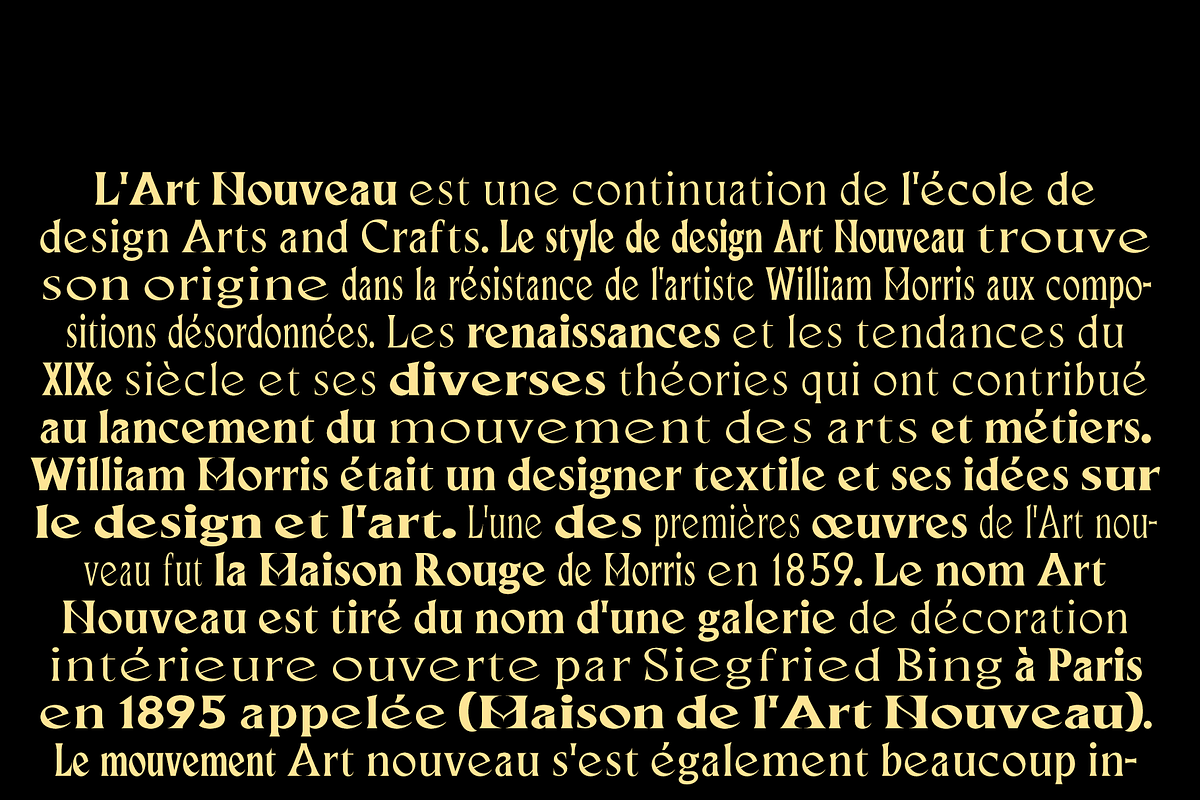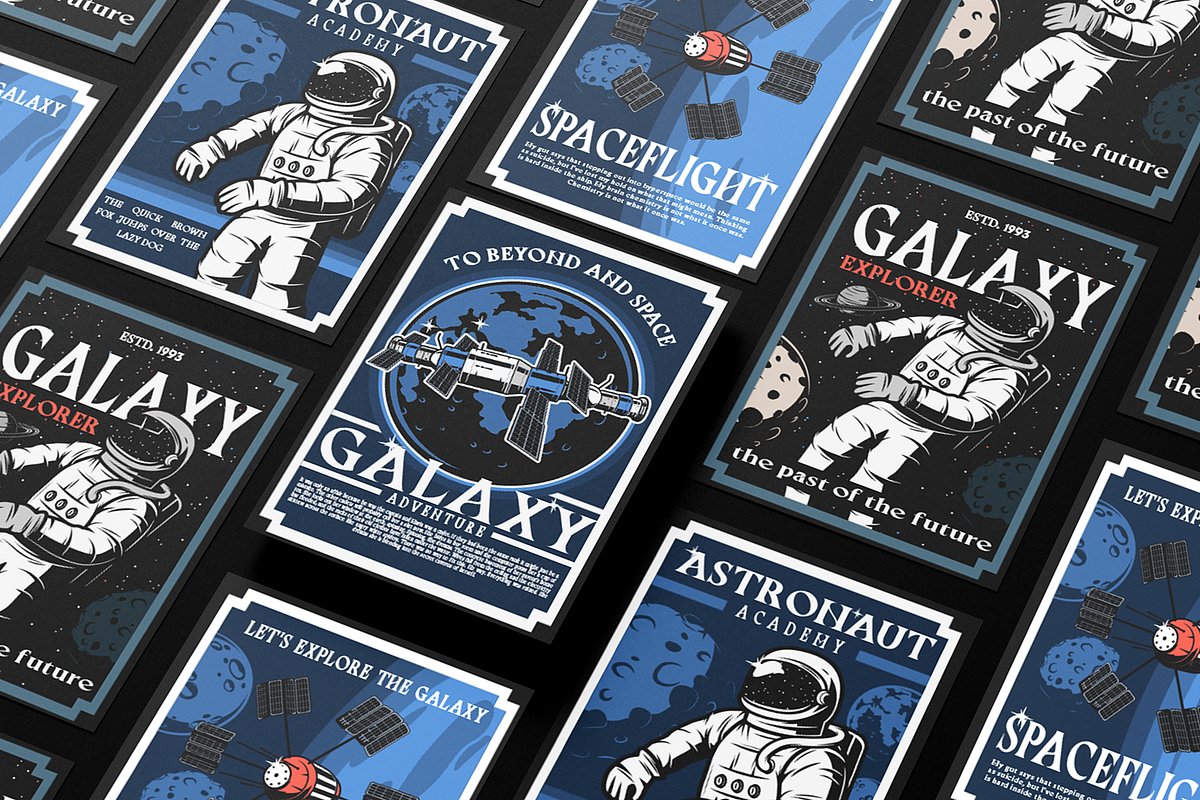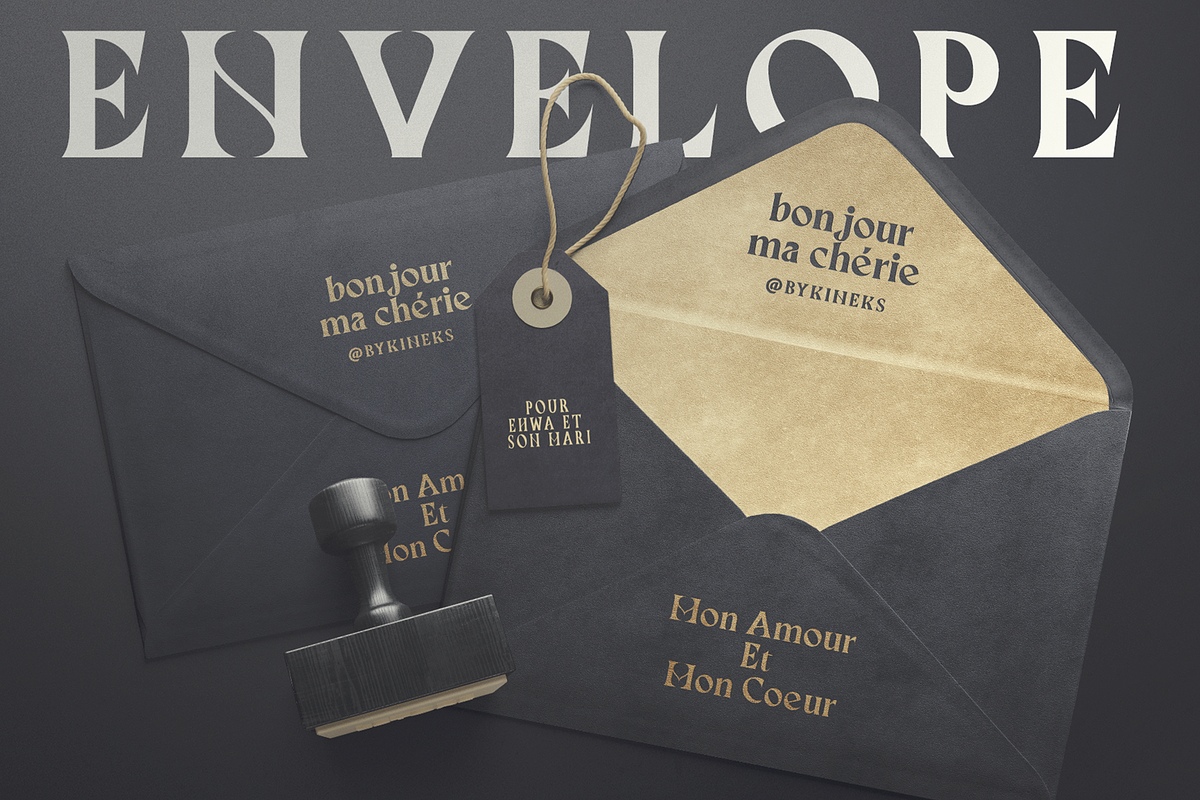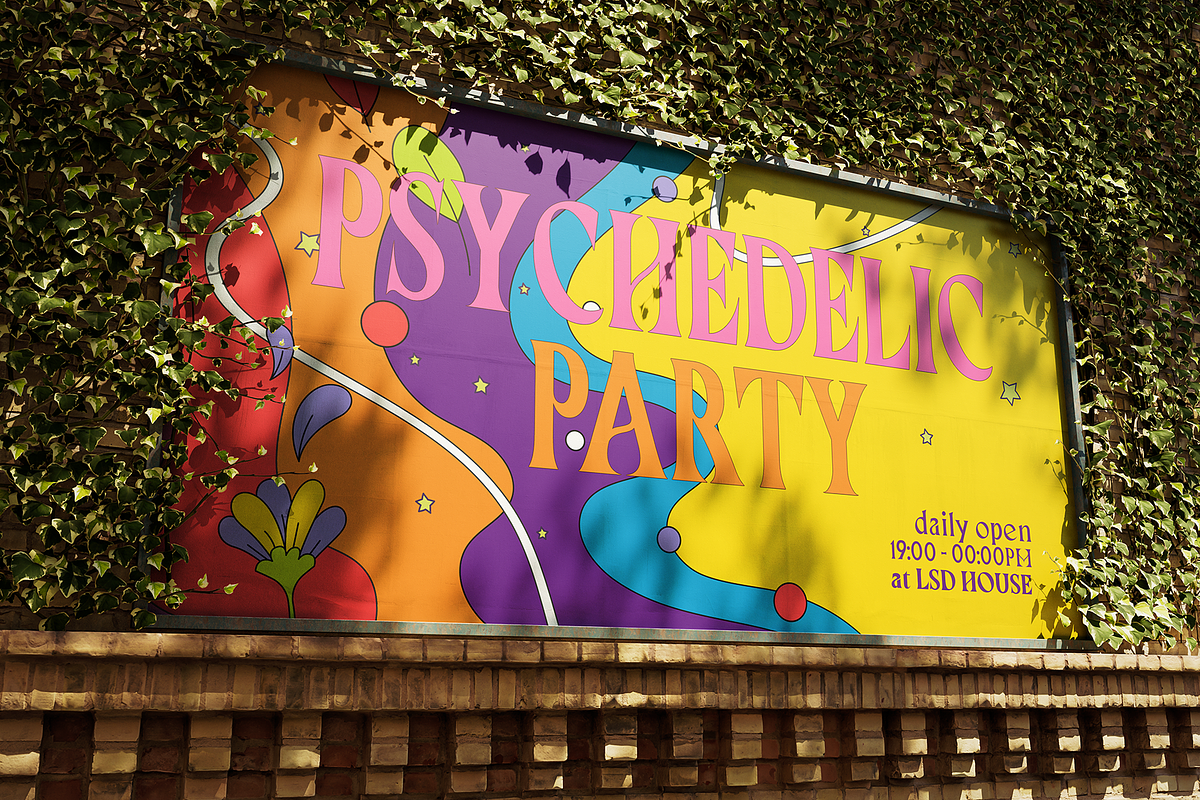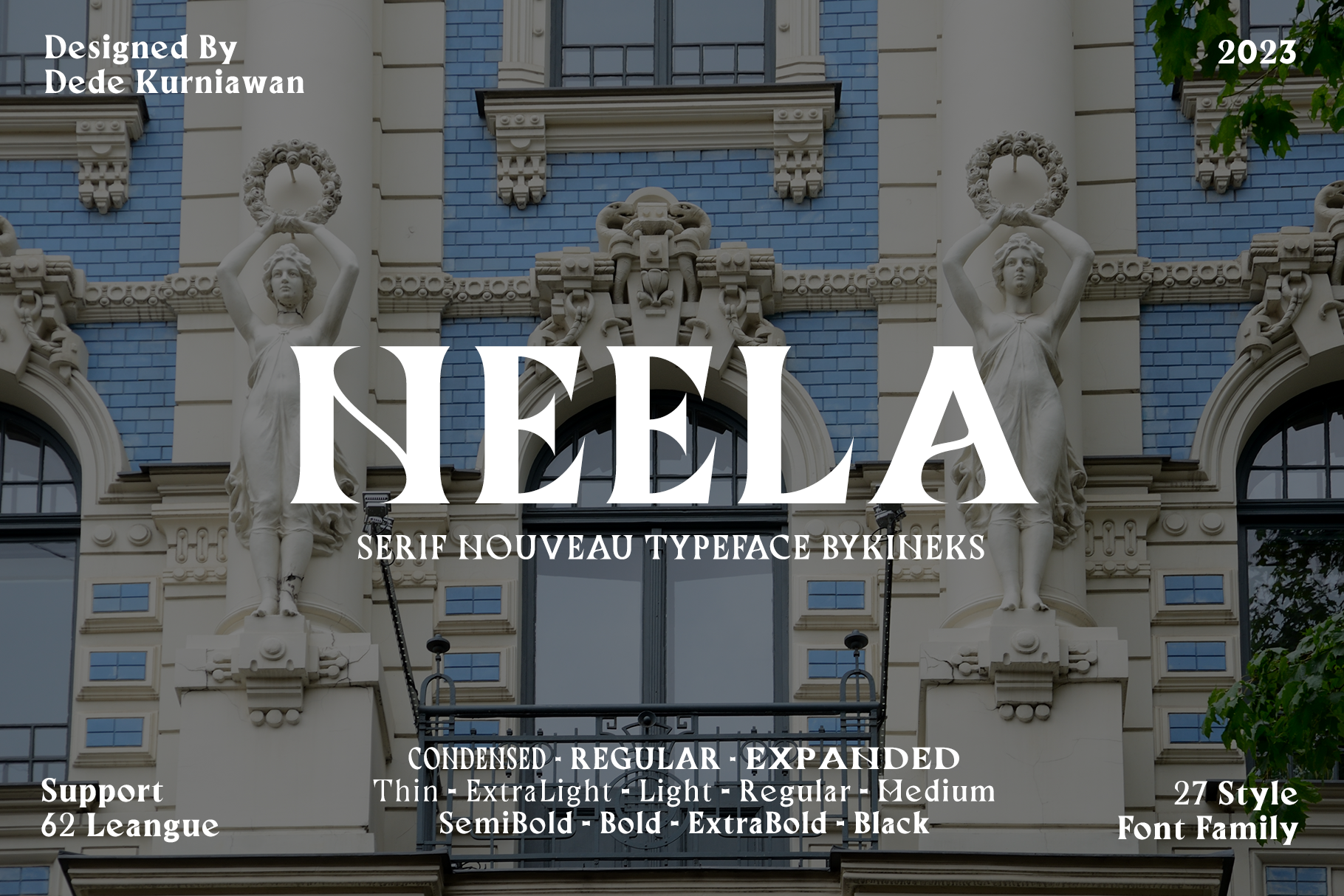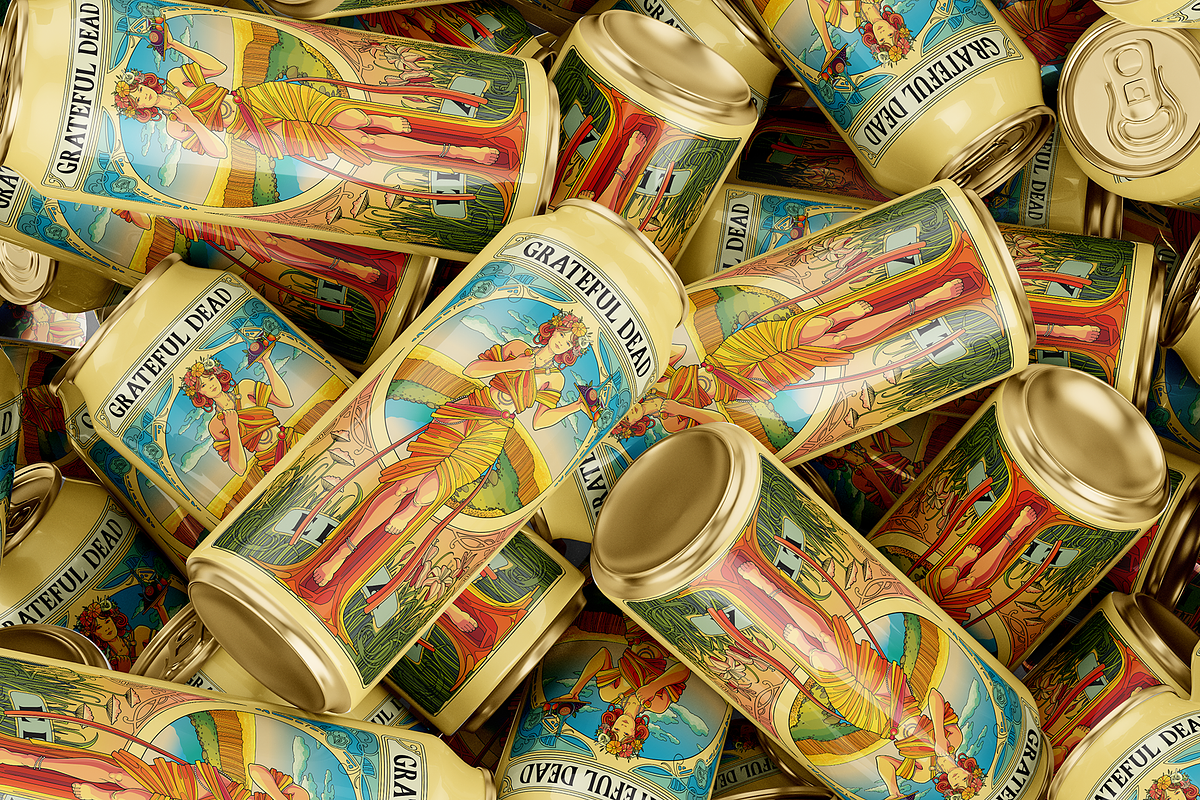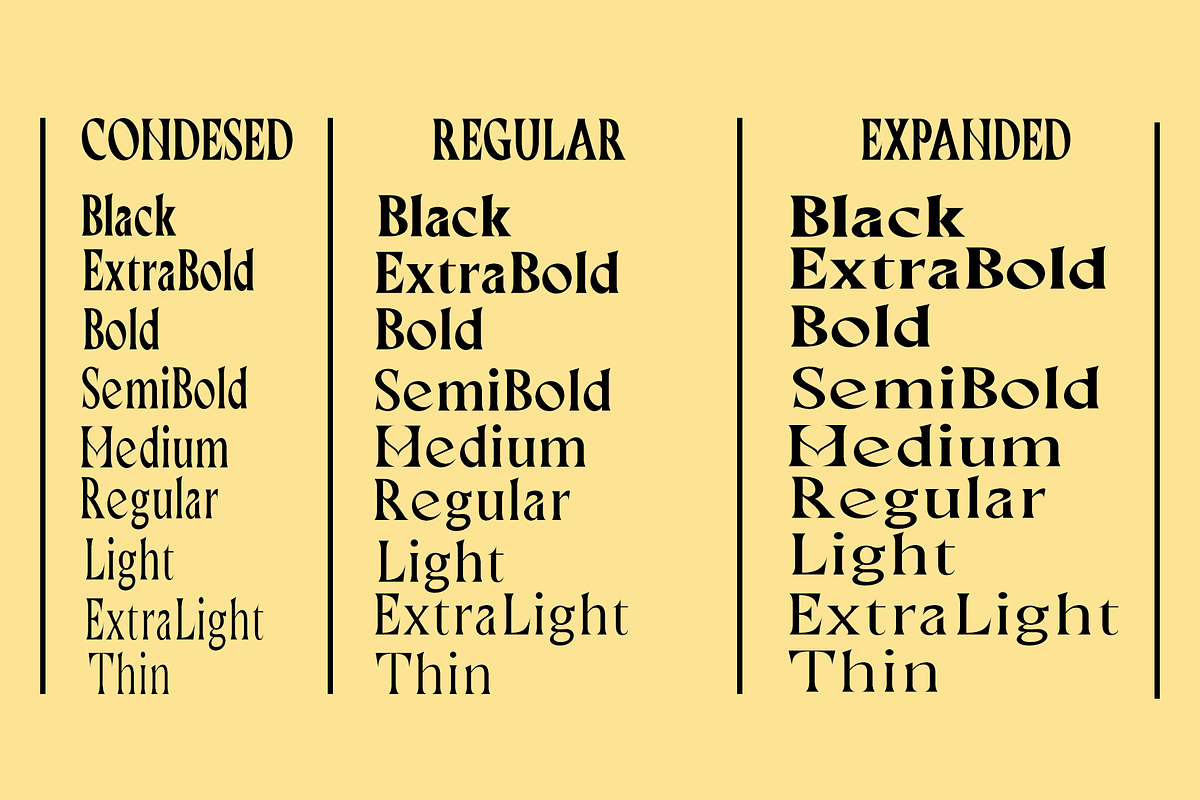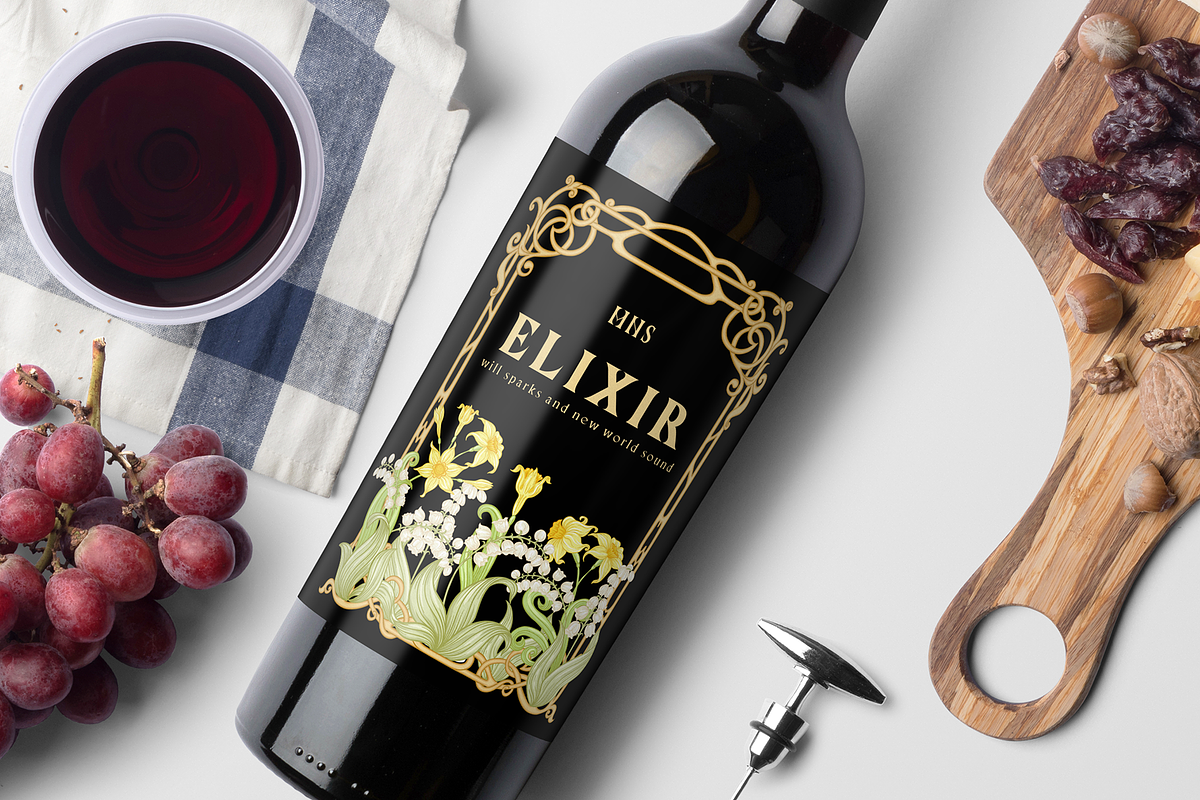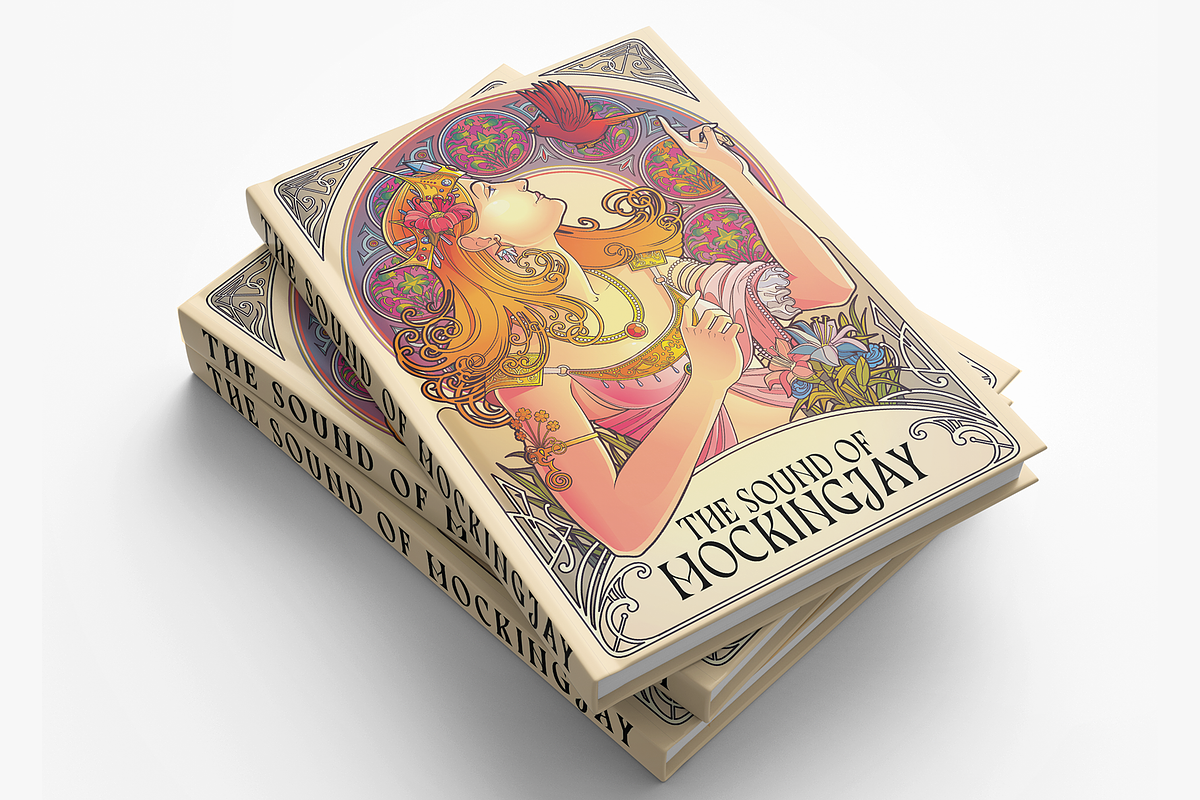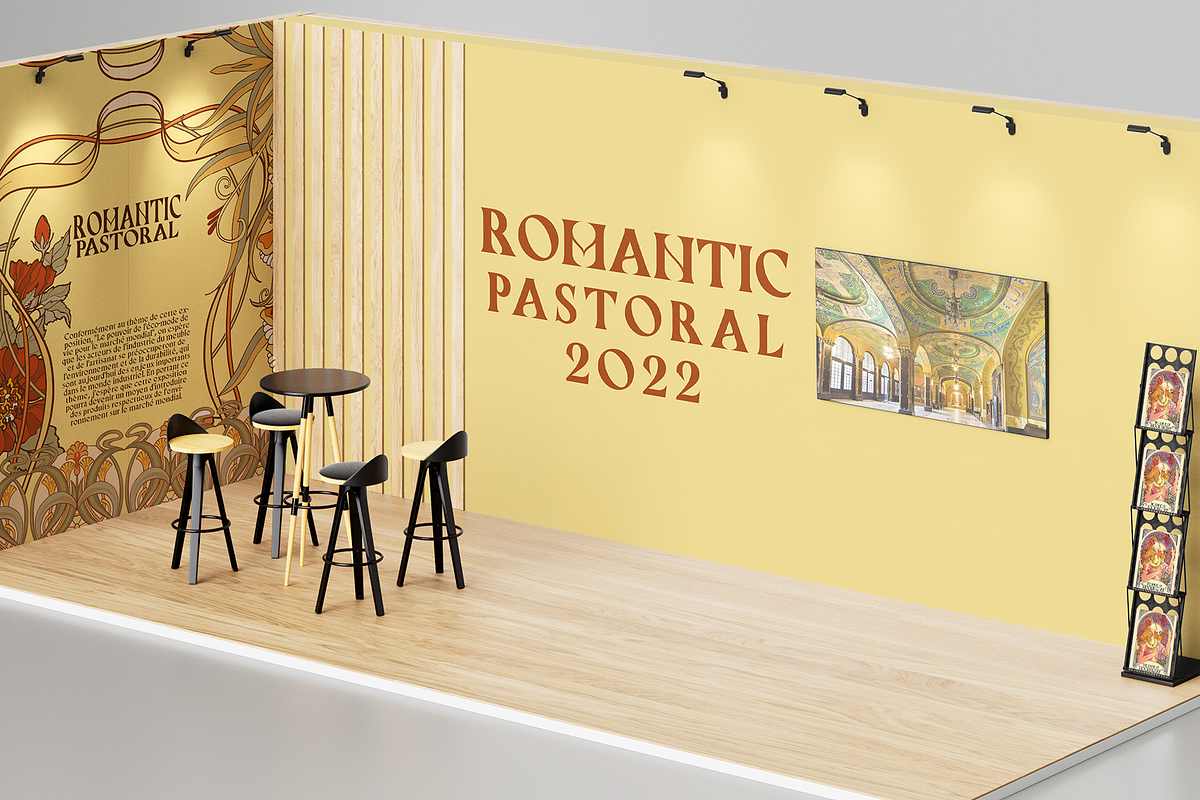
Neela | Serif Nouveau Typeface
Neela is an Art Nouveau serif typeface designed for a variety of design needs. With 27 font families consisting of thin, extralight, light, regular, medium, semibold, bold, extrabold, and black, as well as condensed and expanded types, Neela can be used for various sizes and design needs. Neela is characterized by sleek and elegant letters, with typical Art Nouveau elements, such as subtle and elegant decorative flourishes. This font is suitable for various design needs, such as: Book covers, wine labels, wedding invitations, exhibitions, packaging, merchandise, event billboards, posters and many others. Neela also supports 65 Latin alphabet languages, so it can be used for various design needs throughout the world. Characteristics The letters are sleek and elegant Distinctive Art Nouveau elements Suitable for a variety of design needs Neela is the perfect typeface for designers looking for an elegant and versatile Art Nouveau serif typeface. This font can be used for various design needs, from book design, labels, invitations, to graphic design.